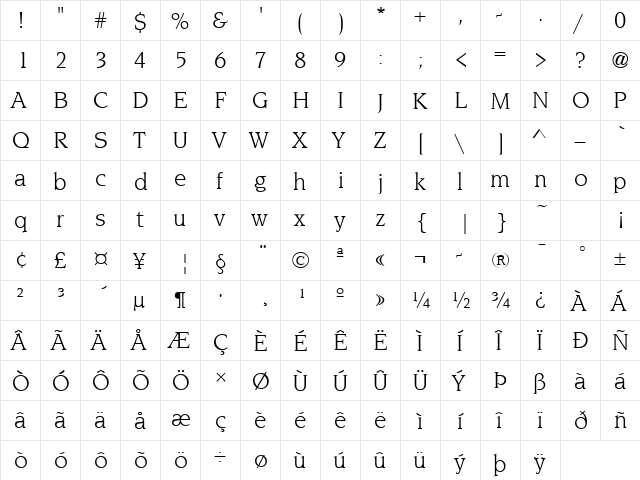
Navarro Regular
Design Context for Navarro Typeface
Navarro takes a measured approach to typography — its balanced proportions and neutral character make it a reliable workhorse for both digital and print work.